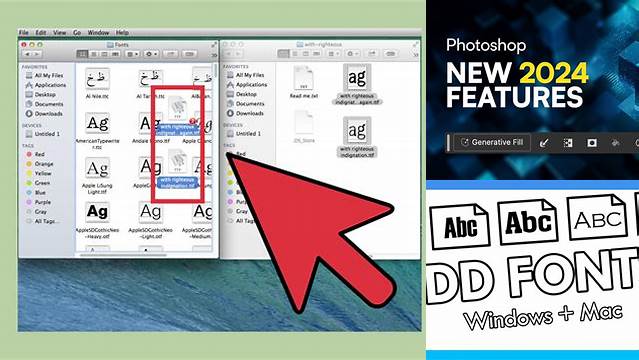
Add Fonts In Photoshop 2024: A Beginner's Guide
Adobe Photoshop 2024, a cornerstone of digital artistry, offers a vast canvas for creative expression. And what's a canvas without the right tools? Fonts are a fundamental aspect of any design, whether it's for a sleek website, a captivating poster, or an eye-catching social media graphic. So, let's dive into how to seamlessly integrate fonts into your Photoshop workflow and elevate your designs. This guide covers everything, from the basics of installing fonts to advanced tips for managing your font library. Get ready to unleash your typographic potential!
1. Downloading Fonts: Your Gateway to Typographic Treasures
1.1 Choosing the Right Font for Your Project
Choosing the right font for your project in Adobe Photoshop 2024 is super important. It's not just about picking a font you like; it's about selecting a font that complements your design's message and aesthetic. Different fonts evoke different emotions and convey various tones. A sleek, modern sans-serif font can be ideal for a tech-focused website, giving it a clean and contemporary feel. On the other hand, a more ornate serif font might be perfect for a formal invitation, adding a touch of elegance and sophistication. Before you start downloading fonts, think about the overall purpose of your project. What are you trying to communicate? Who is your target audience? Consider the personality of your brand or the project. Does it need to be playful, serious, professional, or something else? The font you choose should align with this personality. Take time to research different font styles. Sans-serif fonts, like Arial or Helvetica, are generally considered clean and easy to read, making them great for body text. Serif fonts, like Times New Roman or Garamond, have small strokes called serifs at the end of each letter, which can add a touch of classic elegance. Display fonts, such as those used in headlines or logos, are designed for impact and visual appeal, but they may not be suitable for long blocks of text. Always check the readability of the font. No matter how cool a font looks, if it's difficult to read, it will detract from your design. Test your chosen font in different sizes and weights to ensure it remains clear and legible. Experimentation is key. Download a few fonts that catch your eye and try them out in your Photoshop project. See how they look with different text sizes, colors, and backgrounds. Don't be afraid to mix and match fonts to create visual interest, but avoid using too many different fonts, as this can make your design look cluttered. Always remember the importance of licensing. Ensure that the font you choose is licensed for your intended use, whether it's personal or commercial. Free fonts are available, but they may have limited licenses. Always read the terms of use. Ultimately, choosing the right font for your Adobe Photoshop 2024 project is an art in itself. By considering the message you want to convey, the audience you're targeting, and the readability of the font, you'll be well on your way to creating visually stunning designs.